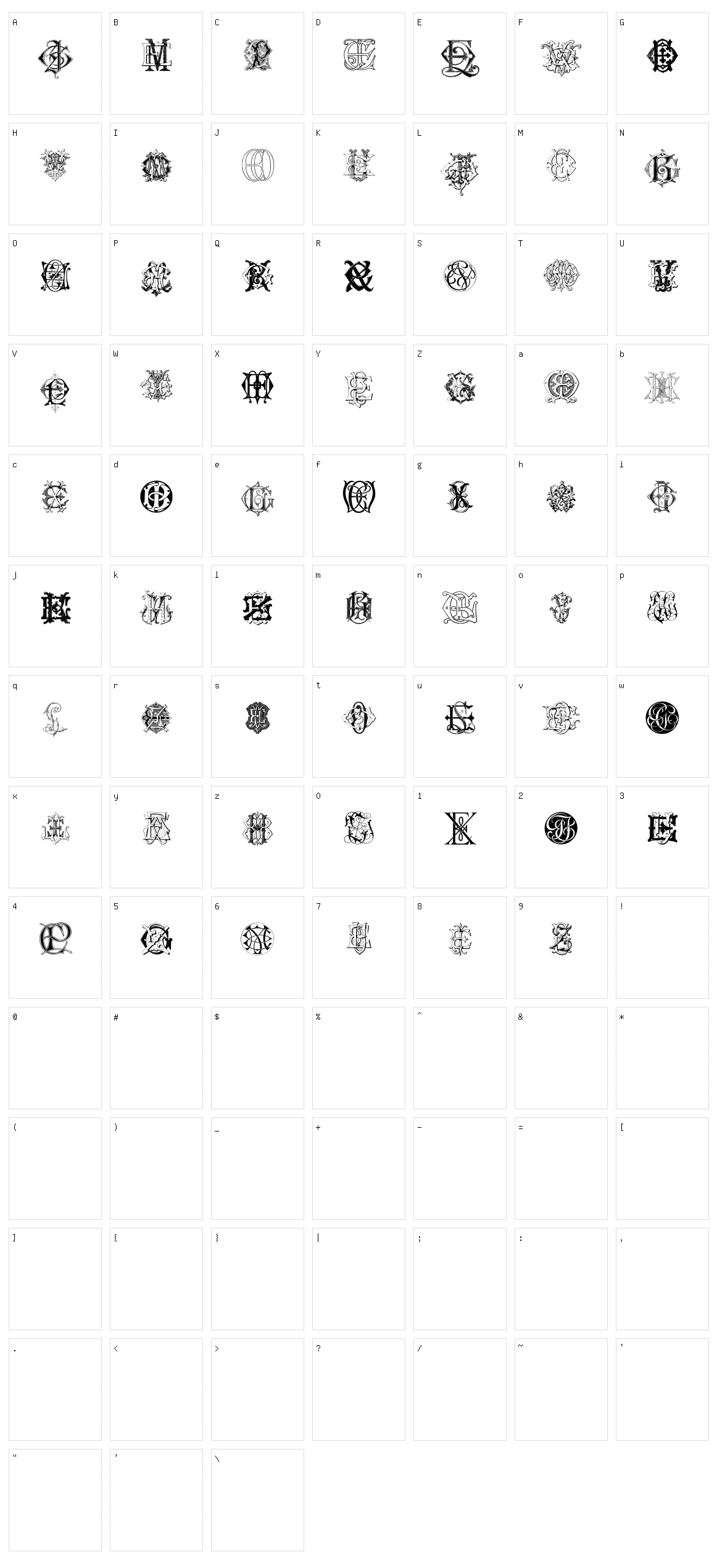
The free font Intellecta Monograms Random Samples Six is carefully designed by Intellecta Design, showcasing a thoughtful balance of creativity and usability and falls under the Initials font style. When you download the ZIP file, it contains only 761.09 KB of font files, making it lightweight and quick to download. Please review the license details below to understand permitted usage and distribution rights. If license information is not available, we recommend using this font for personal projects only or contacting the author directly for commercial usage permissions.